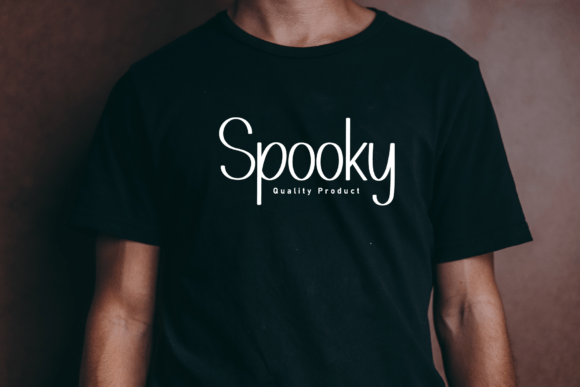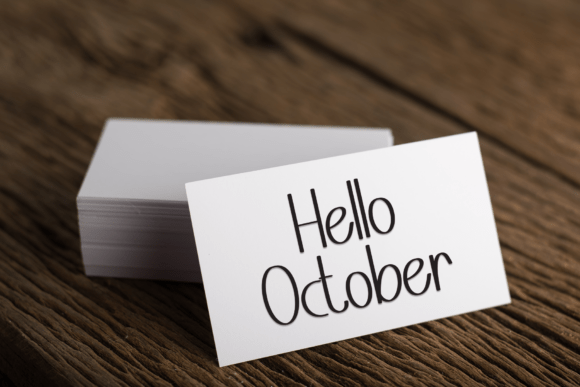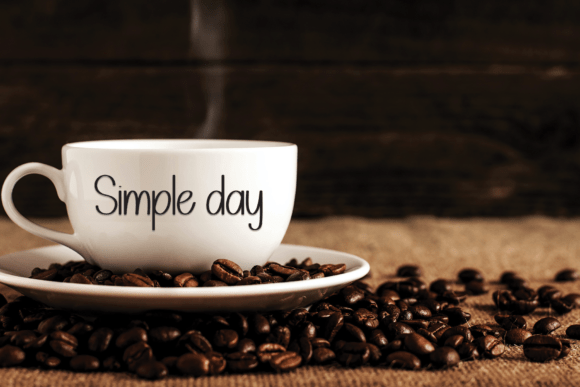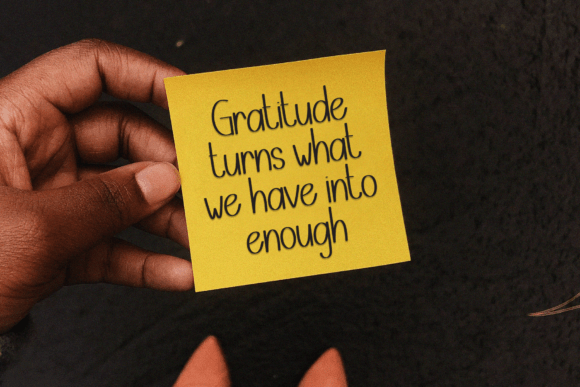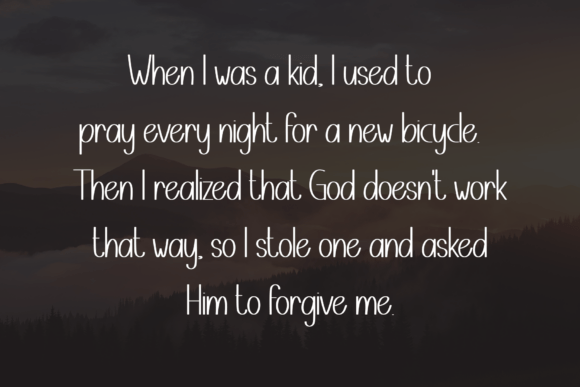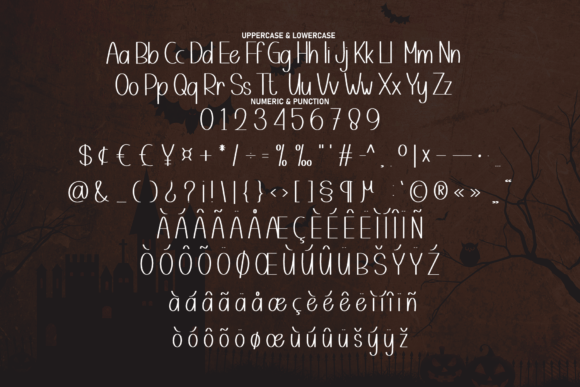
Happy Halloween Font: A Spooktacular Addition to Your Design Arsenal
As the witching hour approaches, designers and crafters are on the lookout for the perfect font to add a touch of eerie elegance to their Halloween-themed creations. Look no further than the Happy Halloween Font, a casual and neat display font that’s sure to cast a spell on your audience. In this article, we’ll dive into the features and benefits of this fantastic font, and explore how it can elevate your designs to new heights.
A Font that Combines Simplicity with a Friendly Vibe
The Happy Halloween Font is a masterclass in modern typography, blending simplicity with a friendly, approachable vibe. Its clean lines, balanced letterforms, and subtle rounded edges create a polished finish that’s perfect for a wide range of design applications. Whether you’re working on branding, headlines, packaging, or digital content, this font is sure to add a warm and inviting touch to your creations.
Key Features of the Happy Halloween Font
- Clean Lines: The Happy Halloween Font features clean lines that give it a crisp, modern look. This makes it perfect for designs that require a bit of sophistication and elegance.
- Balanced Letterforms: The font’s balanced letterforms ensure that each character is harmonious and visually appealing. This balance makes the font easy to read and understand, even at smaller sizes.
- Subtle Rounded Edges: The subtle rounded edges of the Happy Halloween Font give it a friendly and approachable feel. This feature makes the font perfect for designs that require a bit of warmth and personality.
The Happy Halloween Font is incredibly versatile, making it perfect for a wide range of design applications. Here are just a few ideas to get you started:
- Branding: Use the Happy Halloween Font to create a unique and memorable brand identity that’s sure to stand out from the crowd.
- Headlines: Add a touch of elegance and sophistication to your headlines with this fantastic font.
- Packaging: The Happy Halloween Font is perfect for packaging designs that require a bit of personality and flair.
- Digital Content: Use this font to add a warm and inviting touch to your digital content, from social media graphics to blog posts and more.
Why Choose the Happy Halloween Font?
With so many fonts to choose from, why should you choose the Happy Halloween Font? Here are just a few reasons:
- Unique and Memorable: The Happy Halloween Font is a unique and memorable addition to any design. Its clean lines, balanced letterforms, and subtle rounded edges make it a font that’s sure to stand out from the crowd.
- Versatile: This font is incredibly versatile, making it perfect for a wide range of design applications.
- Easy to Read: The Happy Halloween Font is easy to read, even at smaller sizes. This makes it perfect for designs that require a bit of clarity and legibility.
Tips for Using the Happy Halloween Font
Here are a few tips for getting the most out of the Happy Halloween Font:
- Experiment with Different Sizes: The Happy Halloween Font looks great at a wide range of sizes, from small and delicate to large and bold. Experiment with different sizes to find the one that works best for your design.
- Pair it with Other Fonts: The Happy Halloween Font pairs well with a wide range of other fonts. Try pairing it with a bold sans-serif font for a contrasting look, or with a elegant script font for a more sophisticated feel.
- Use it to Add Personality: The Happy Halloween Font is perfect for adding a bit of personality and flair to your designs. Use it to add a touch of warmth and friendliness to your branding, or to create eye-catching headlines and packaging.
The Happy Halloween Font is a fantastic addition to any design arsenal. Its clean lines, balanced letterforms, and subtle rounded edges make it a font that’s both modern and elegant. With its versatility, clarity, and charm, this font is perfect for a wide range of design applications. Whether you’re working on branding, headlines, packaging, or digital content, the Happy Halloween Font is sure to cast a spell on your audience. So why wait? Download the Happy Halloween Font today and start creating your own spooktacular designs!